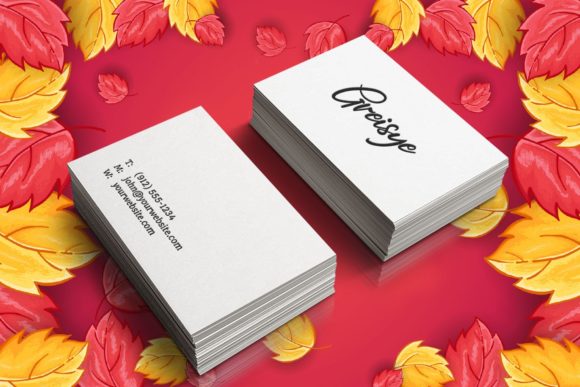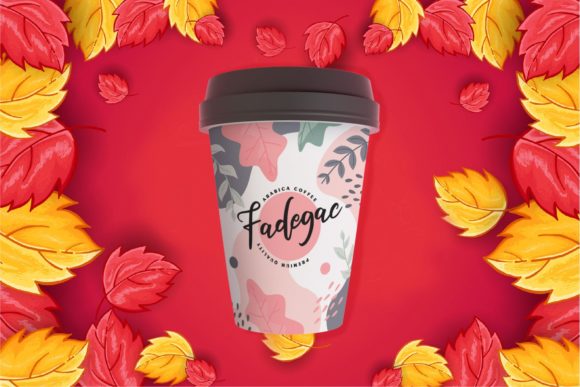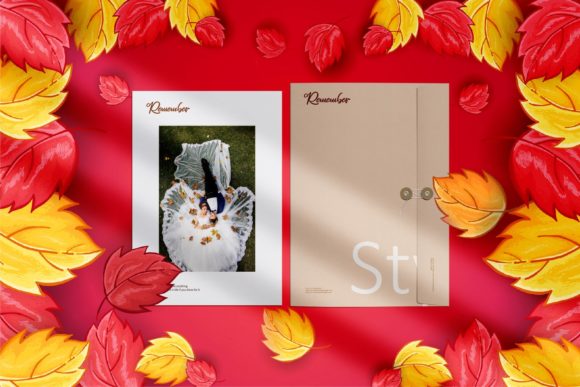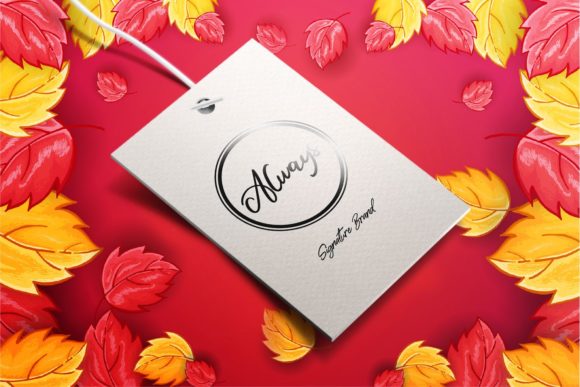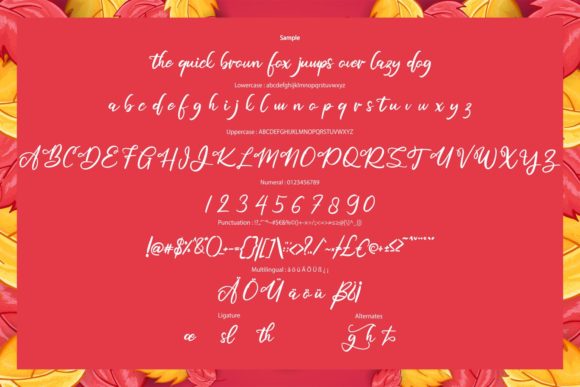
The Bright Font: A Timeless Choice for Creative Projects
Have you ever been in the middle of a design project, and suddenly, you’re stuck on finding the perfect font? I recall a particularly frustrating experience while working on a wedding invitation design. My client wanted something elegant, yet playful, and I was determined to deliver. That’s when I stumbled upon the Bright font – an incredibly distinct, delicate, and timeless handwritten font that instantly elevated my design.
An Honest Review of Bright Font
What I Love About Bright Font
- ✨ Elegant and refined aesthetic, perfect for high-end designs
- 💕 Delicate and timeless feel, suitable for various design applications
- 🎨 Versatile and adaptable to different design styles and themes
While Bright Font is an excellent choice for many designs, there are a few things to keep in mind:
- 🤔 Limited availability of stylistic alternates, which might restrict design flexibility
- ⚠️ Not ideal for body text or lengthy content, as it’s best suited for headlines and titles
The Story Behind Bright Font
Bright Font was designed with the intention of creating a timeless and elegant handwritten font. The designer aimed to craft a font that would be both delicate and refined, suitable for a wide range of design applications. Although the designer’s background and inspiration are not well-documented, it’s clear that Bright Font has become a popular choice among designers and crafters.
Q: What type of designs is Bright Font best suited for?
A: Bright Font is ideal for designs that require a personal touch, such as wedding invitations, thank you cards, quotes, greeting cards, logos, and business cards.
Q: Is Bright Font suitable for body text or lengthy content?
A: No, Bright Font is best suited for headlines and titles. For body text or lengthy content, consider using a more legible font.